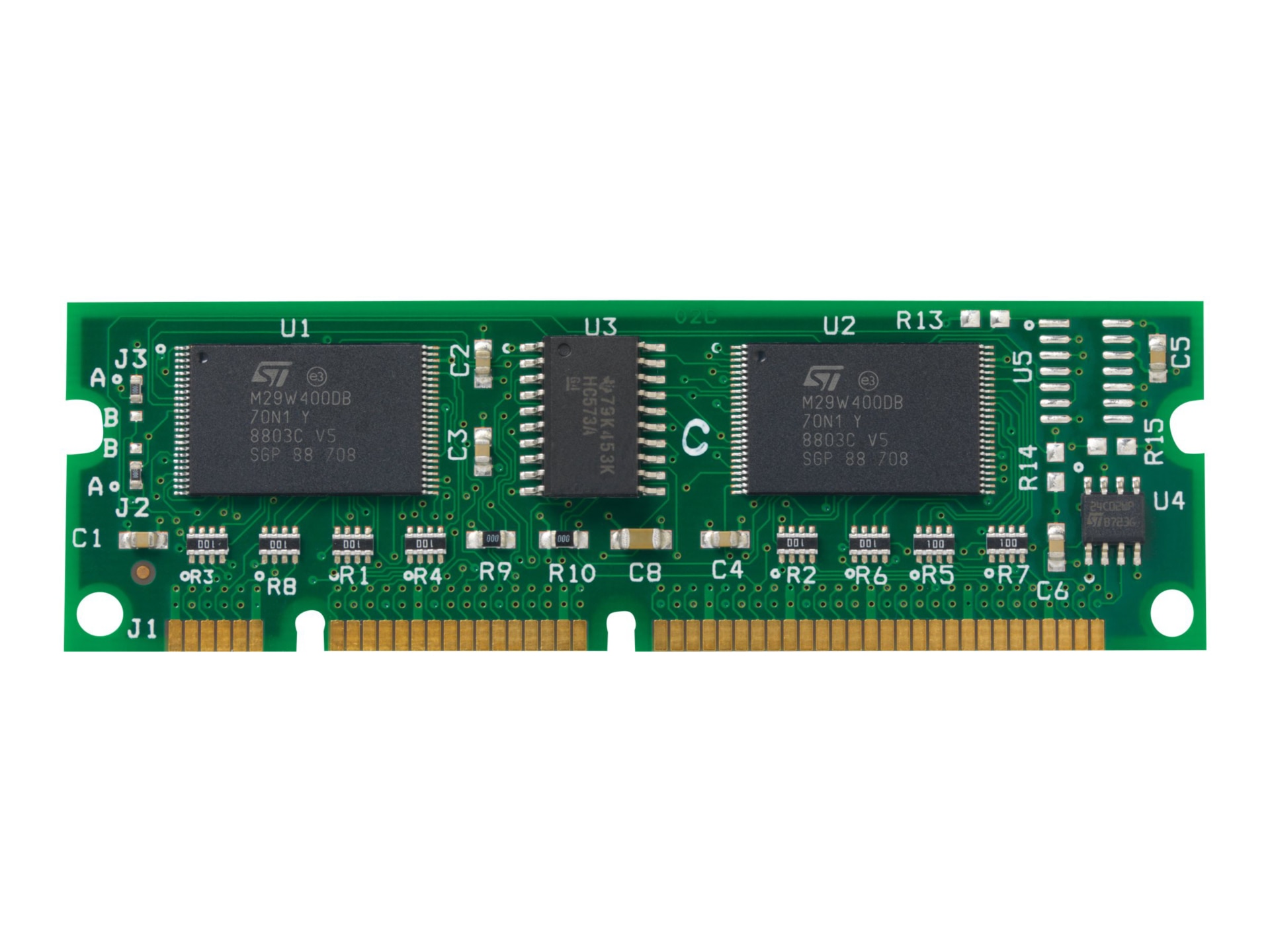
HP MICR Font ROM
• MICR Font, E13B
Print checks directly-with a professional look and feel-by installing HP MICR Fonts on your HP LaserJet. Manage your payroll and payables in-house on your schedule, not a service's. HP MICR Fonts enable an end-to-end check printing solution. Use HP MICR Fonts together with HP Custom Fonts for consistent signatures, logos and images, plus increased manageability and consistent brand identity.